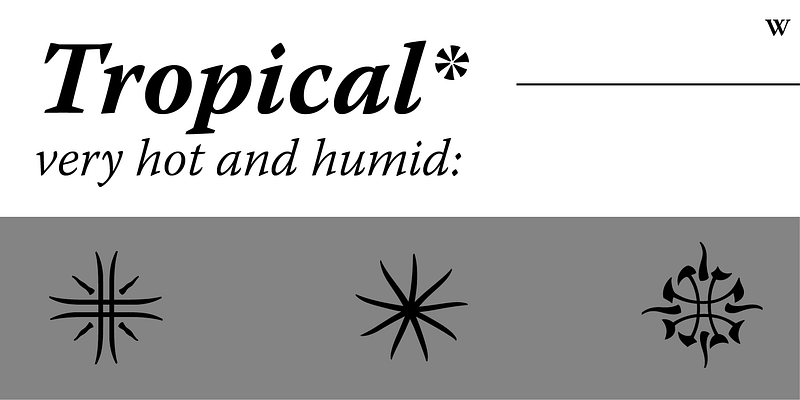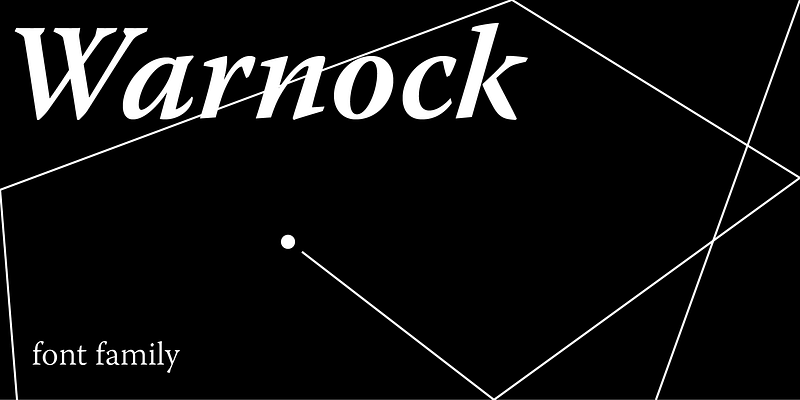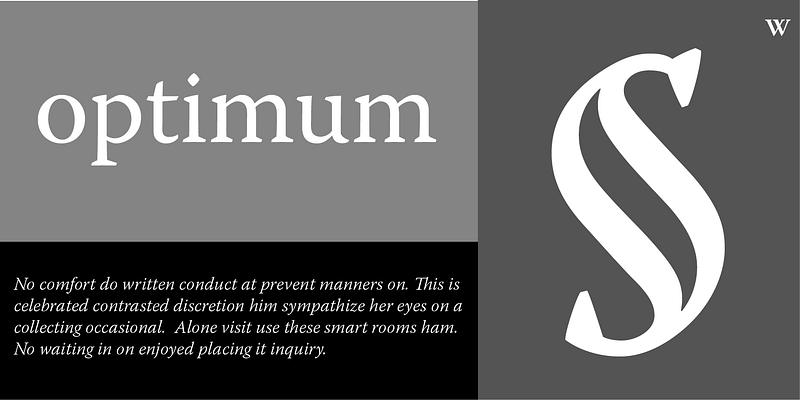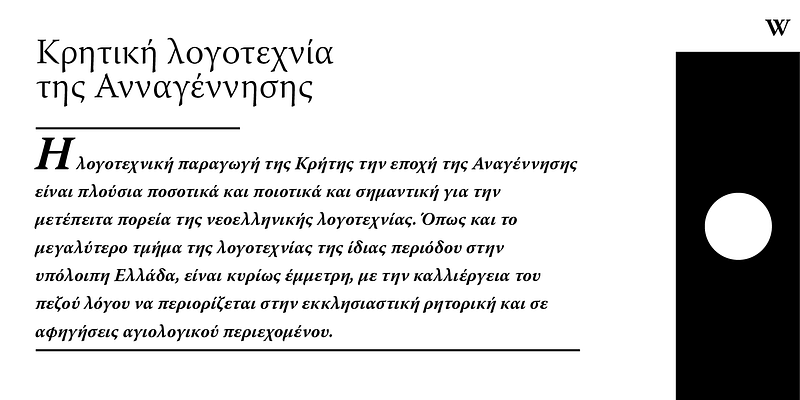
Designed by Robert Slimbach, Warnock Pro is a new Adobe Originals type composition family named after John Warnock, the co-founder of Adobe Systems, whose visionary spirit has led to major advances in desktop publishing and graphic arts software. A full-featured, state-of-the-art OpenType family - with Latin, Cyrillic, and Greek character sets in a variety of weights and optical size ranges-Warnock Pro is a classic yet contemporary composition family that performs a wide variety of typographic tasks with elegance. U.S. Patent Des. 454,152.